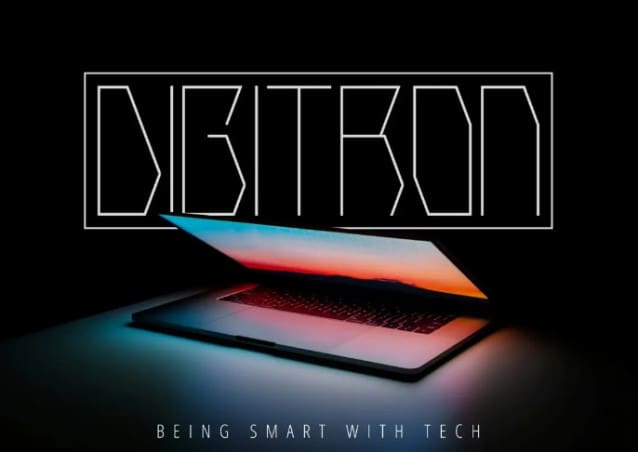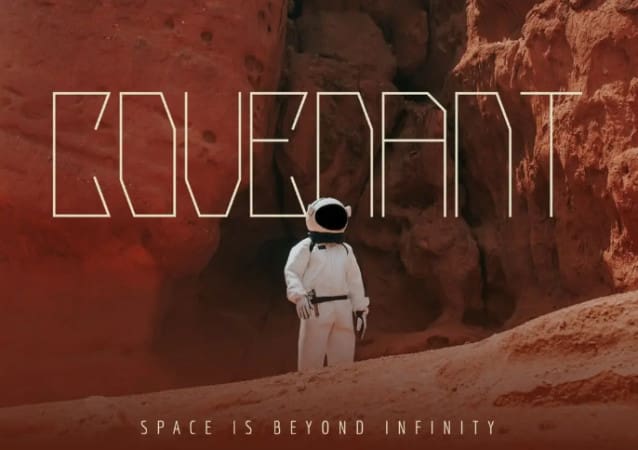
Kerson Futuristic Font
Kerson Futuristic Font, a sophisticated and modern thin font crafted by Nomlimofont. This typeface exudes futuristic sci-fi vibes with exceptional clarity. It is the perfect choice for a wide range of applications, including posters, titles, wordmarks, headlines, and more. Kerson encapsulates a futuristic sci-fi atmosphere while ensuring impeccable clarity in each character. Whether you need to create a captivating poster, impactful title, memorable wordmark, or attention-grabbing headlines, Kerson is the ideal font to elevate your designs.